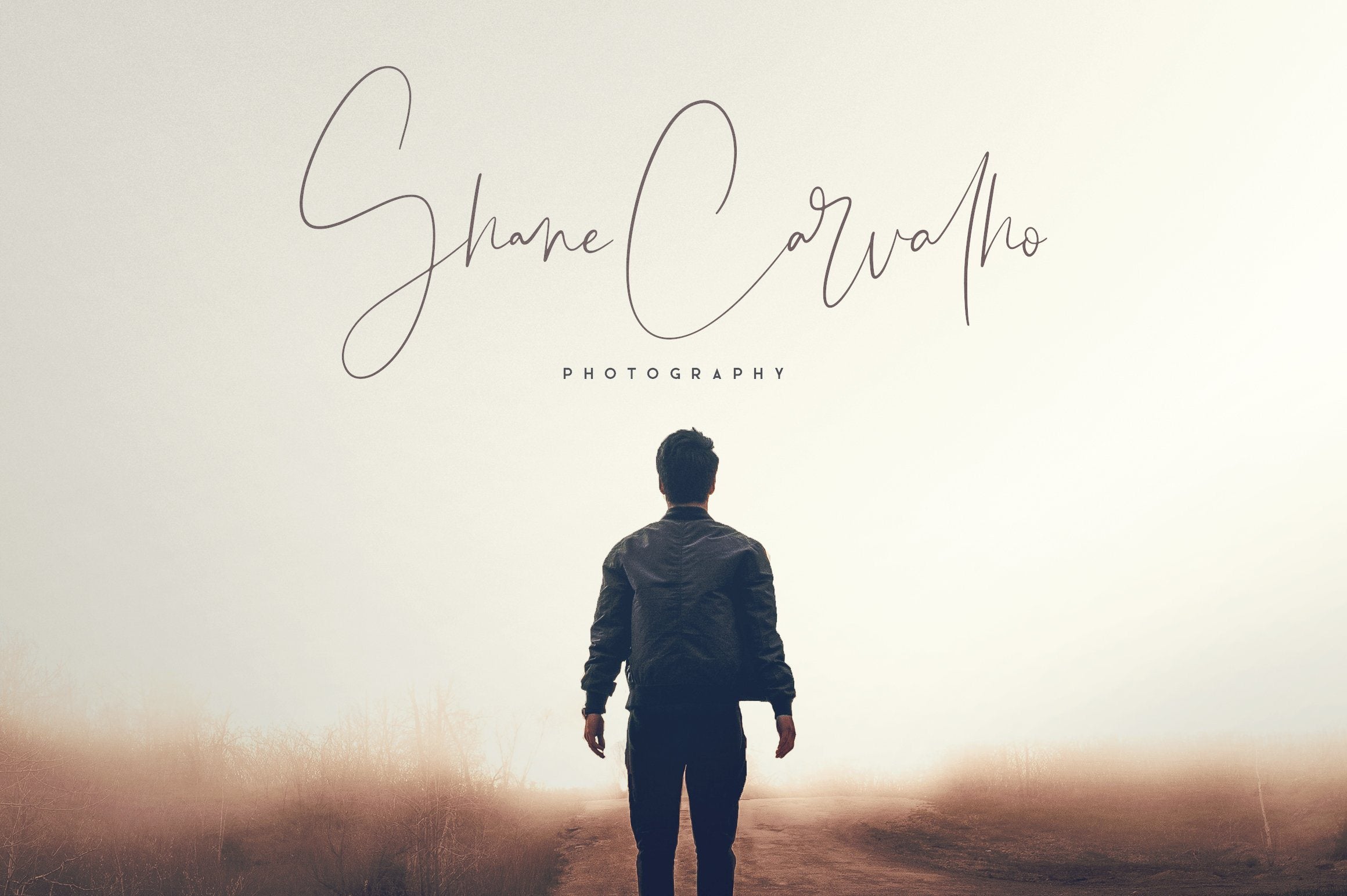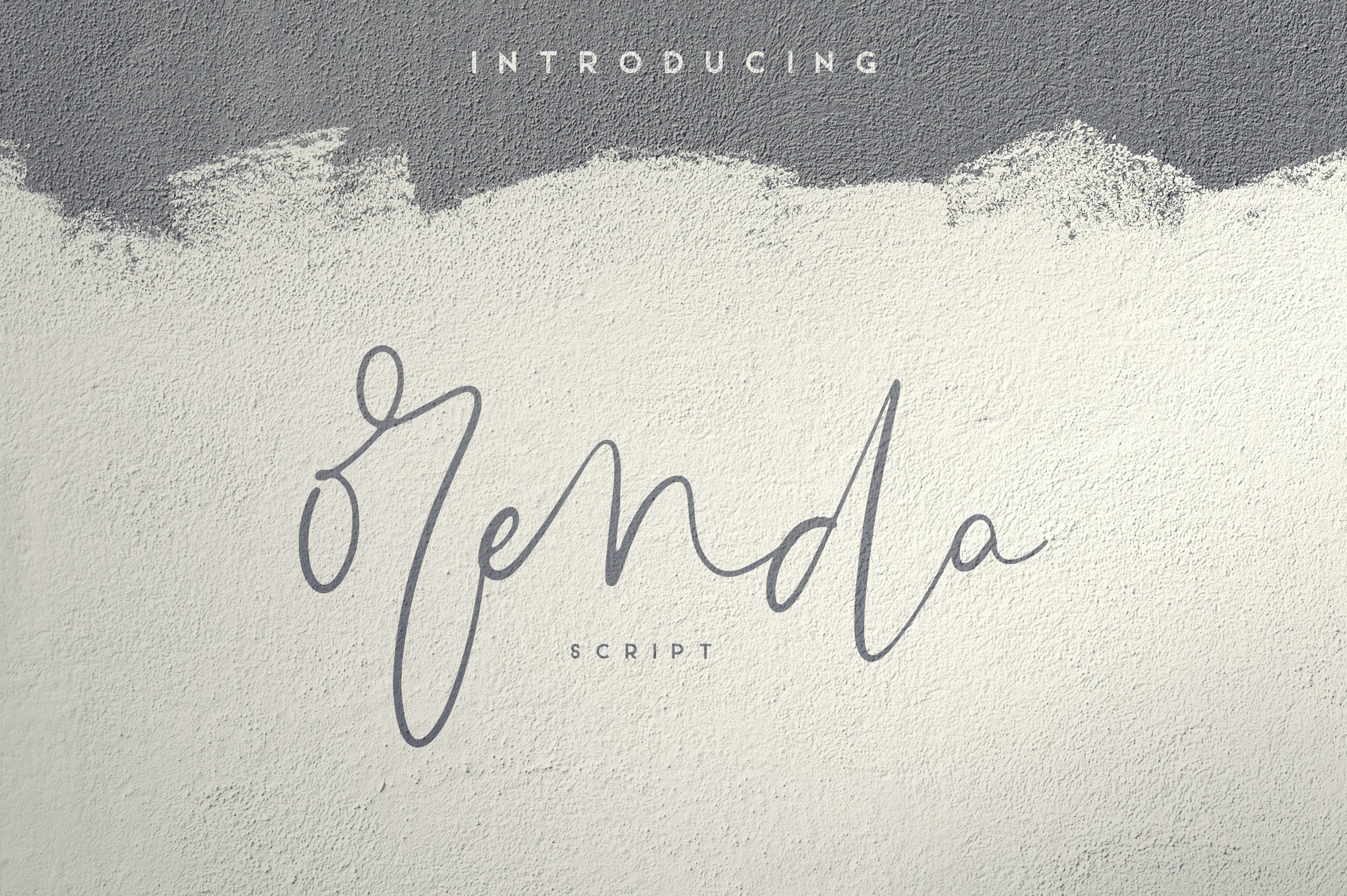
About Orenda – Script font
Introducing Orenda – script font Orenda is clean, bouncy script with ligature glyphs and multilingual support. It’s a very versatile font that works great in large and small sizes. Orenda is perfect for branding projects, home-ware designs, product packaging, magazine headers – or simply as a stylish text overlay to any background image. Uppercase,lowercase,numeral,punctuation & Symbol Multilingual Ligatures Feel free to contact me if you have any questions! Mock ups and backgrounds used are not included! Thank you! Enjoy!